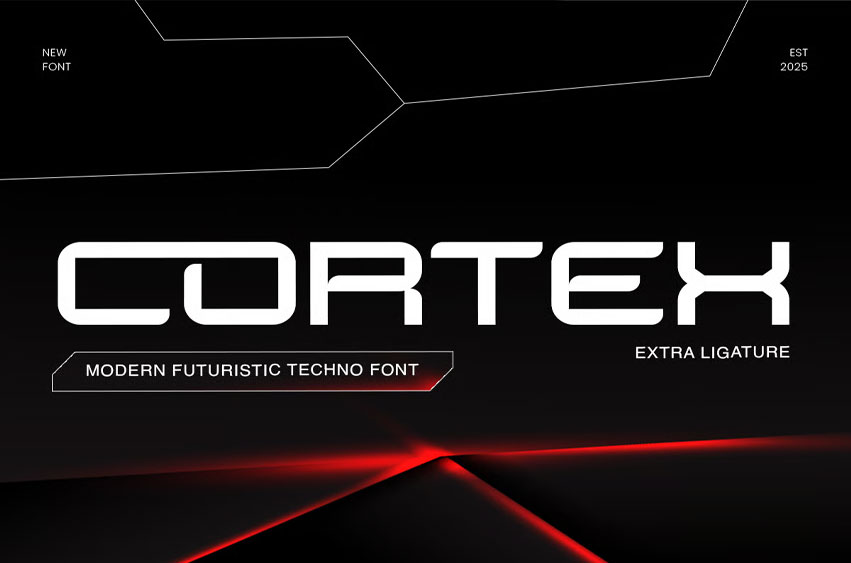
Cortex Font combines strength, clarity, and dynamic character. Its extra ligatures and techno-inspired construction make it visually distinctive while maintaining usability. Designed for designers who appreciate modern futuristic styles, Cortex balances innovation with readability, resulting in a professional yet creative aesthetic that aligns with high-tech and conceptual themes.
Relevance and Use Cases: Excellent for branding projects, futuristic posters, esports visuals, digital advertising, and technology-based creative assets.